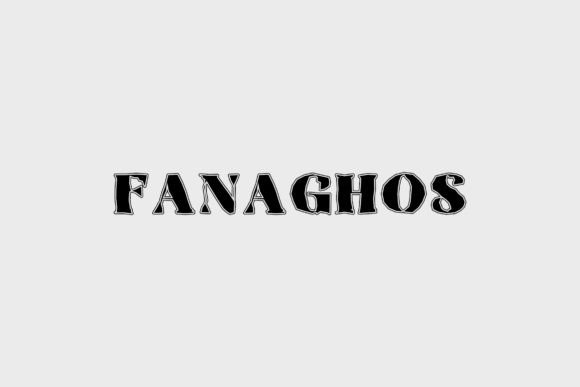
Step into the world of elegance and grace with Fanaghos Font, a distinctive serif font that exudes sophistication and charm. This remarkable creation by Nickhard is not just a font; it's an artistic masterpiece that will transform your designs into captivating visual experiences.
Experience the beauty of Fanaghos Font and let your imagination run wild. Its modern yet whimsical style adds a touch of playfulness to your designs, while its clean and elegant lines ensure a professional and polished look. Every letterform in this font is carefully crafted to evoke a sense of timeless elegance, making it the perfect choice for creating designs that stand the test of time.
With Fanaghos Font, your creative expressions will reach new heights. Unleash your inner artist and let this font be your canvas. Whether you're designing stunning logos, eye-catching posters, or simply adding a touch of elegance to your social media posts, Fanaghos Font will elevate your creations to the next level.
This font's versatility knows no bounds. It effortlessly adapts to a wide range of design projects, from branding and marketing materials to wedding invitations and personal stationery. Its timeless beauty adds a touch of class to any project, making it an indispensable tool for designers of all skill levels.